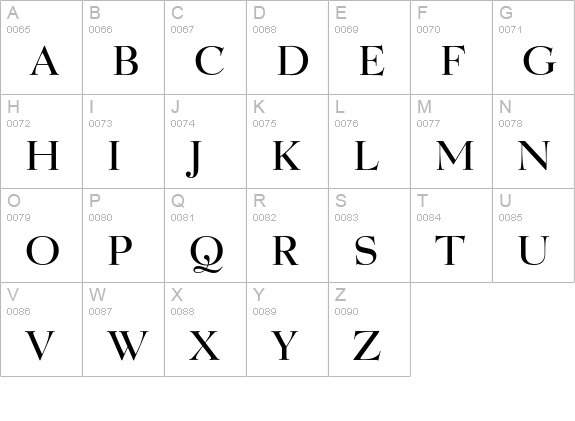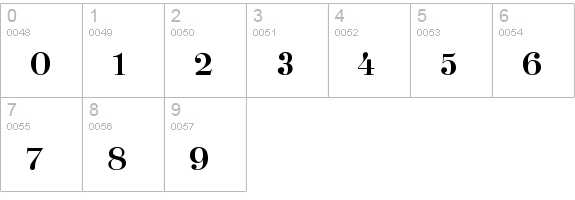
Belucian-DemiBold Font Details
Belucian-DemiBold is a sub-bold, structured variant in the Belucian typeface family \xE2\x80\x94 well suited to sub-headlines and emphasised passages.
Belucian-DemiBold font is a modern and sleek typeface that exudes confidence and sophistication. With its bold weight and clean lines, this font is perfect for making a statement in your designs. Whether you're creating a logo, poster, or website, Belucian-DemiBold will add a touch of elegance and professionalism. What sets Belucian-DemiBold apart is its versatility - it can be used for both headings and body text, making it a practical choice for any project. Its strong presence on the page commands attention, while its subtle details keep it from overpowering the overall design. Best of all, Belucian-DemiBold is available for free download at FontsMarket.com. This means you can add this stylish font to your collection without any cost, making it a valuable asset for designers, students, and businesses alike. Don't miss out on the opportunity to elevate your projects with the striking Belucian-DemiBold font - download it today and see the difference it can make!